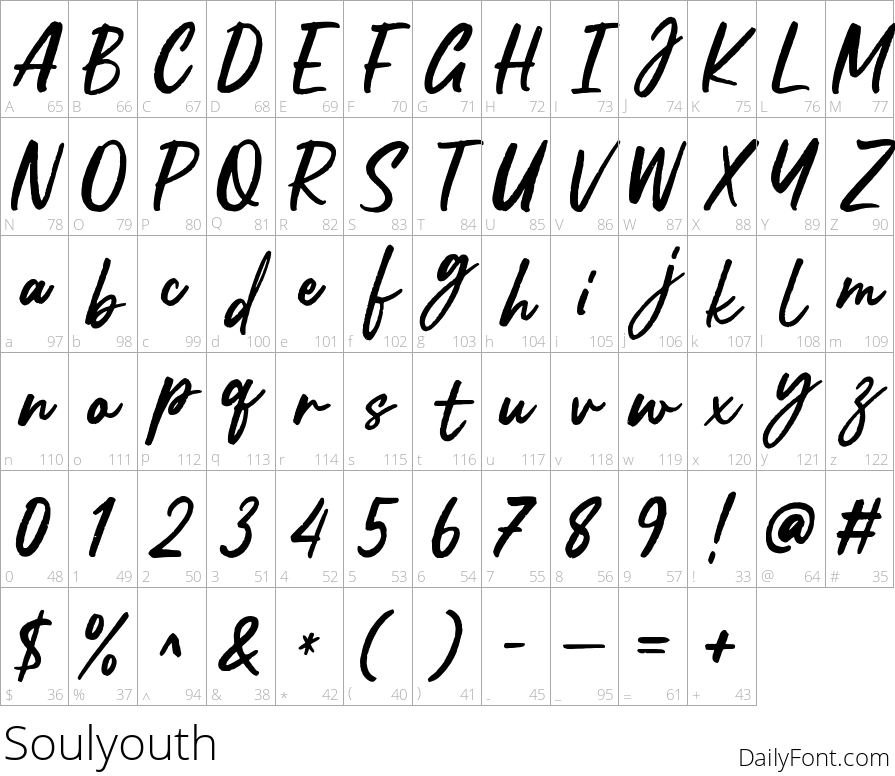
Soulyouth
Introducing Soulyouth, a stunning vintage-styled script font that embodies elegance and charm. With its smooth curves and balanced design, Soulyouth is the ideal choice for those looking to make a statement in fashion branding or editorial layouts. Whether you're crafting a logo, designing a magazine cover, or creating promotional materials, this font will elevate your project to new heights.
What sets Soulyouth apart is its versatility; it seamlessly blends nostalgic aesthetics with contemporary appeal. This font adds a distinctive flair to any design, ensuring your work stands out from the crowd. Perfect for both print and digital applications, Soulyouth is a must-have for designers who value artistic expression and originality. Add it to your font collection today and watch your creativity flourish with every stroke of the pen!